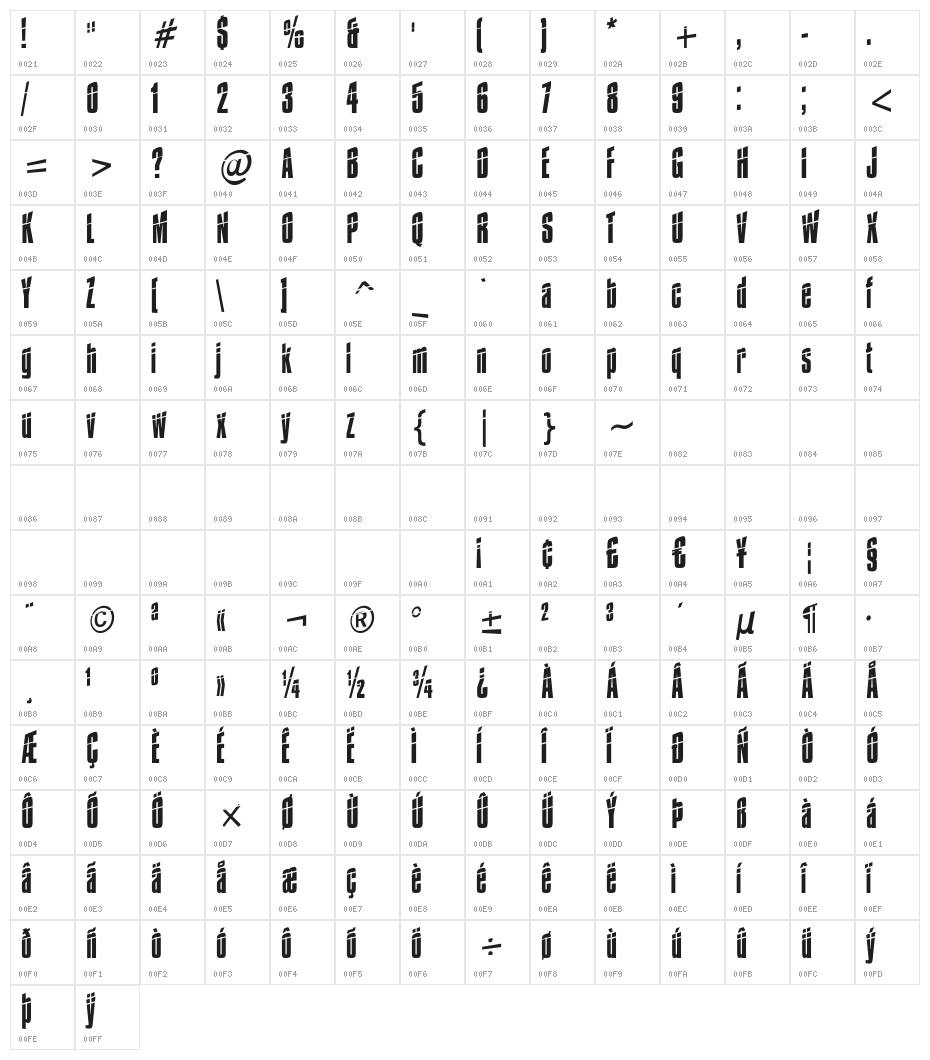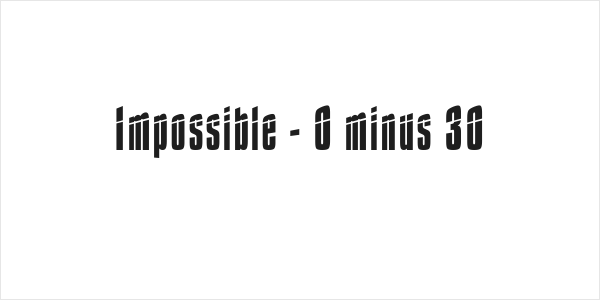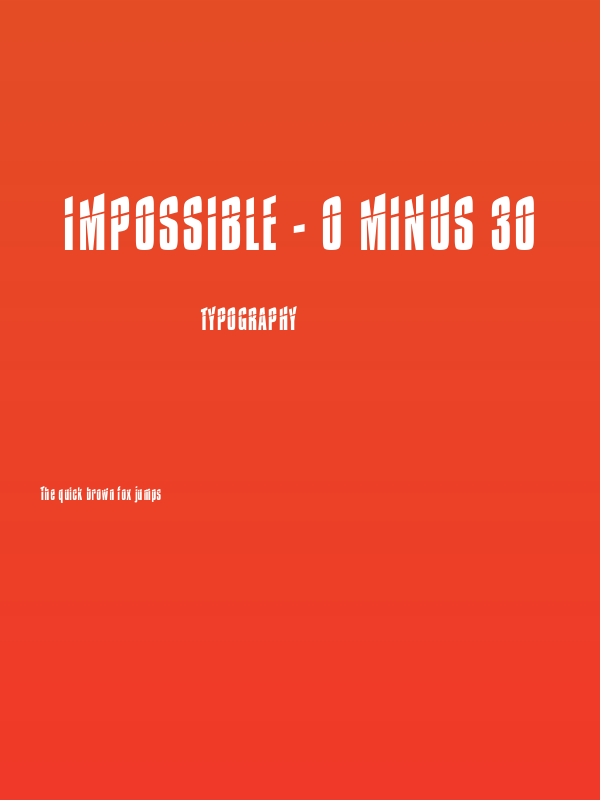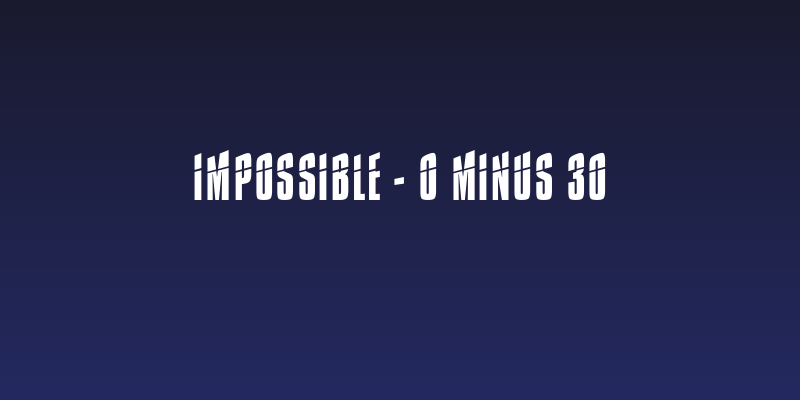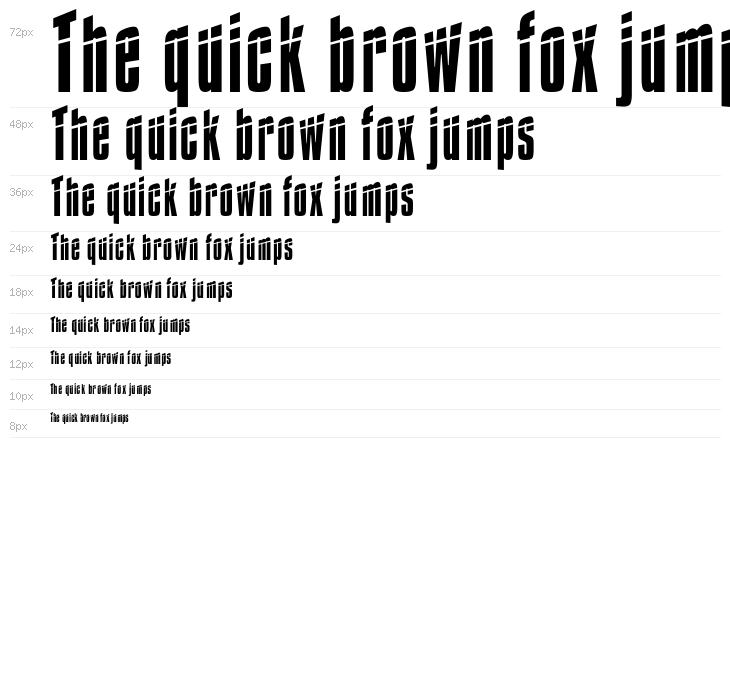
Impossible - 0 minus 30 Font
Impossible - 0 minus 30 Description
This font features a bold and dynamic style with a strong presence. The characters are tall and narrow, giving them a condensed appearance. The uppercase letters are particularly striking, with sharp angles and a sense of movement. The lowercase letters maintain this energetic style, while the numbers are equally bold and impactful. The special characters are designed to match the overall aesthetic, making them suitable for attention-grabbing designs. This font's unique style makes it ideal for projects that require a strong visual impact.
| Proposed Projects | Ideal for posters, headlines, branding, and any design that requires a bold statement. |